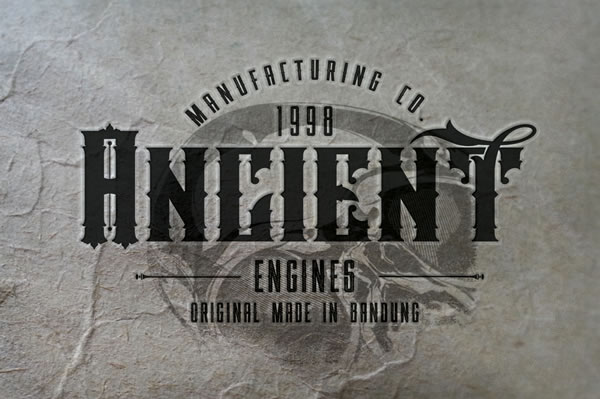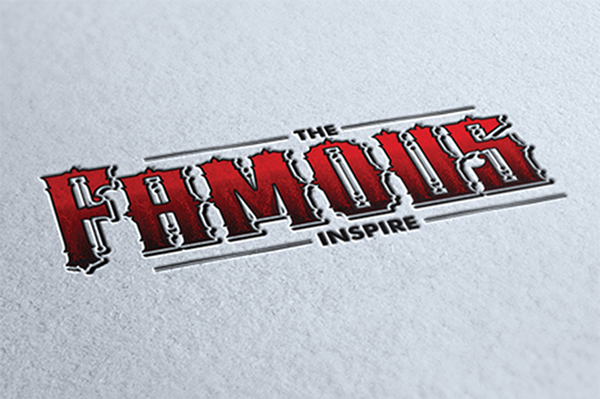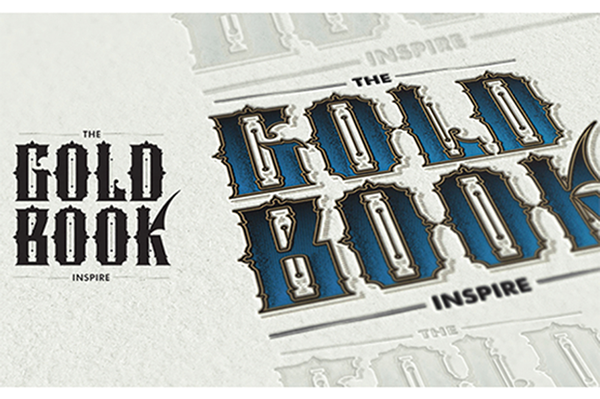
Introduction to Fire Skin Font
Fire Skin is a beautiful blackletter font created by VMF Font.
Why Choose Fire Skin Font?
Fire Skin Font offers exceptional quality and versatility, making it a valuable addition to your design toolkit. Whether you’re creating for personal projects or commercial use, Fire Skin Font delivers professional results.